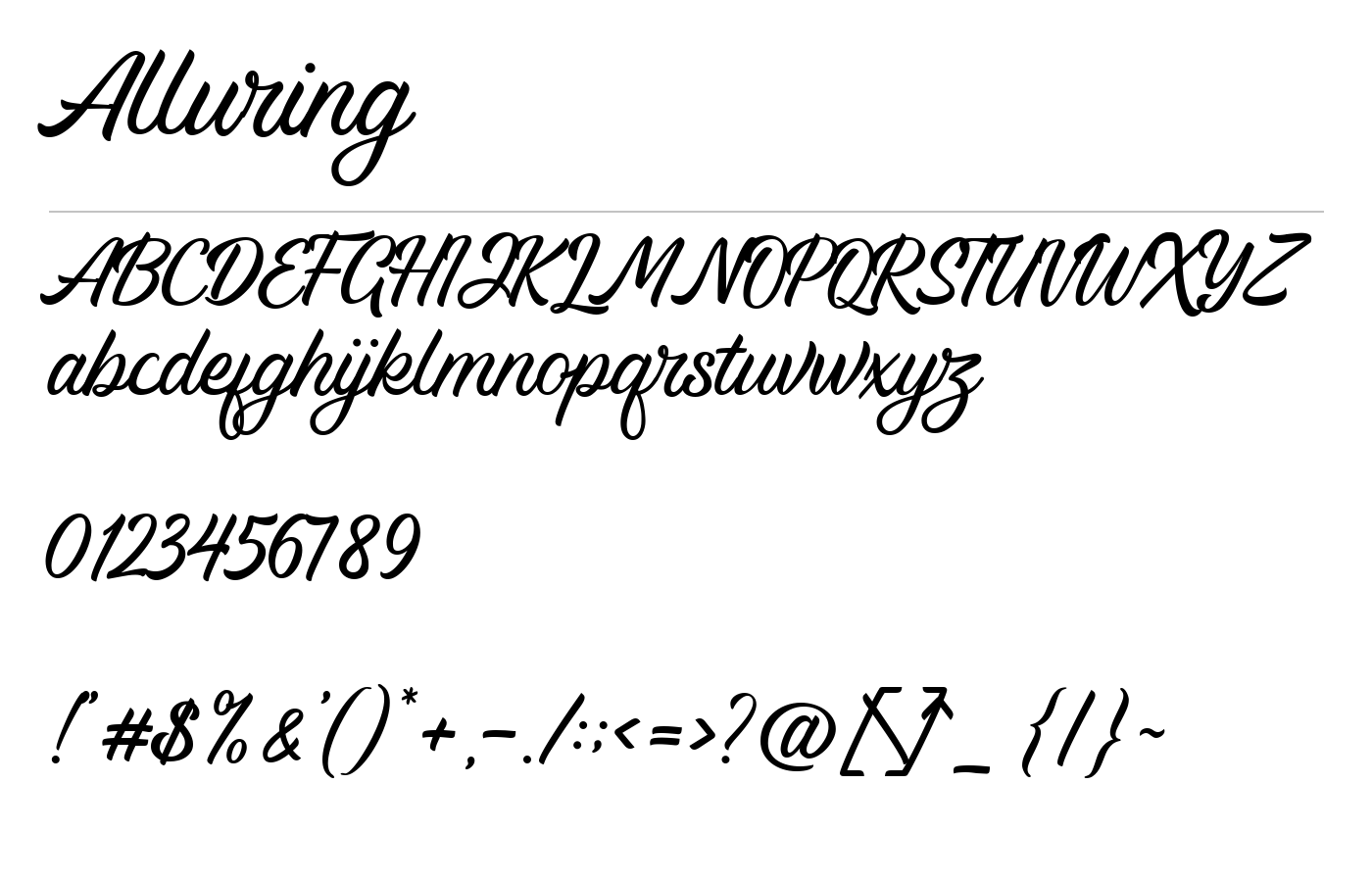
Alluring Font is a graceful script typeface with a smooth, flowing style that exudes elegance and sophistication. Its slightly condensed, medium-weight strokes and refined letterforms make it ideal for branding, invitations, and stylish headlines where a touch of charm and personality is desired. This font works best in projects that seek to convey luxury, creativity, and warmth with a modern yet timeless appeal.
Alluring Font
About Alluring Font
| Font family | Alluring Font |
| Designer | 50Fox Team |